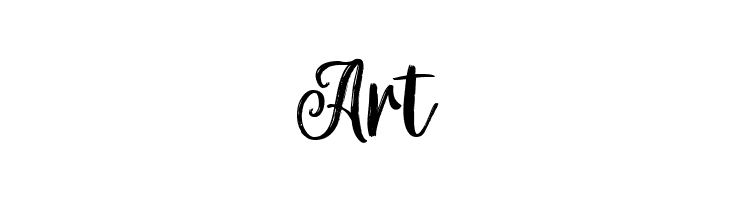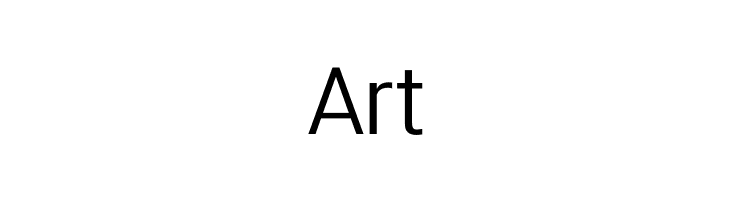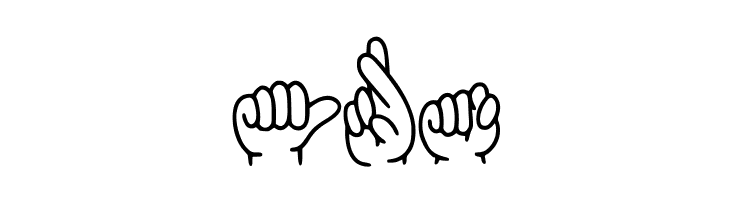
A modern, ultra-condensed font with geometric and sleek letterforms.
An elegant script font with fluid, cursive strokes and a sophisticated appearance.
A bold, classic serif font with a vintage feel and strong legibility.
A modern, geometric font with rounded edges and consistent strokes.
A playful, cartoonish font with quirky, decorative characters.
A bold, dynamic script font with elegant, flowing characters.
A decorative font using hand gestures to represent characters.
A lively and expressive script font with flowing, cursive letterforms and dynamic stroke variations.
A modern, clean sans-serif font with balanced proportions and excellent readability.